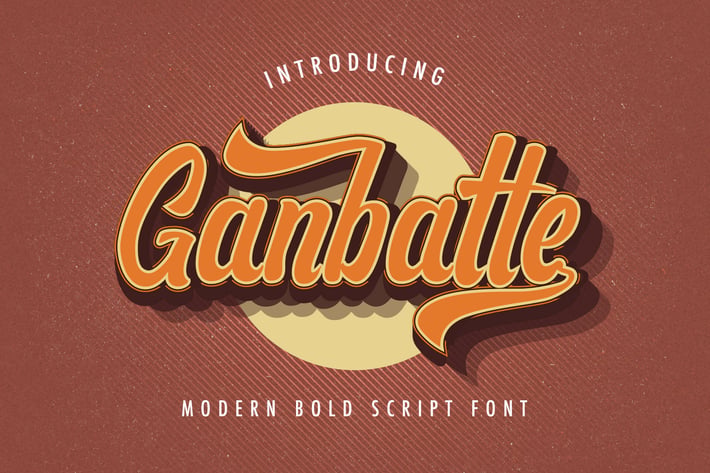
Ganbatte - Bold Script Font
Introducing Ganbatte - Bold Script Font
Ganbatte is a flowing handwritten font, described by an elegant touch, ideal for your urban creations. Get inspired by its distinct style and use it to create lovely designs!